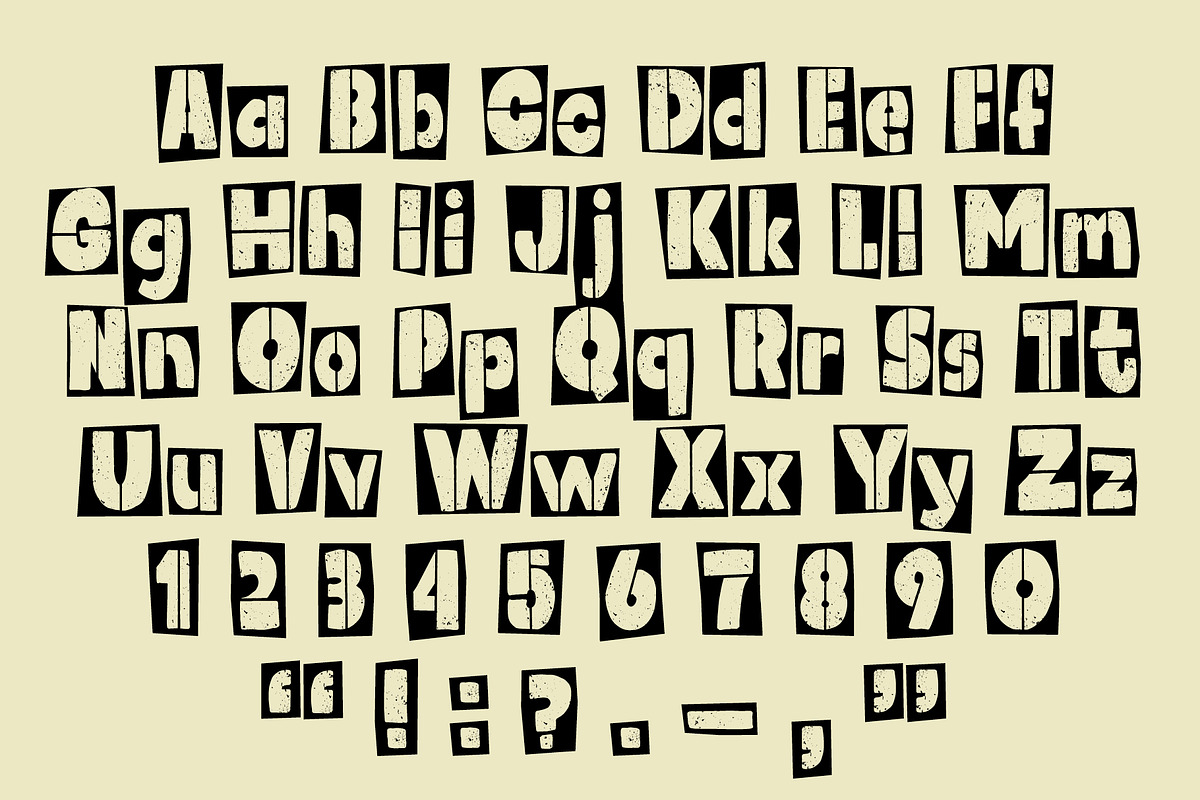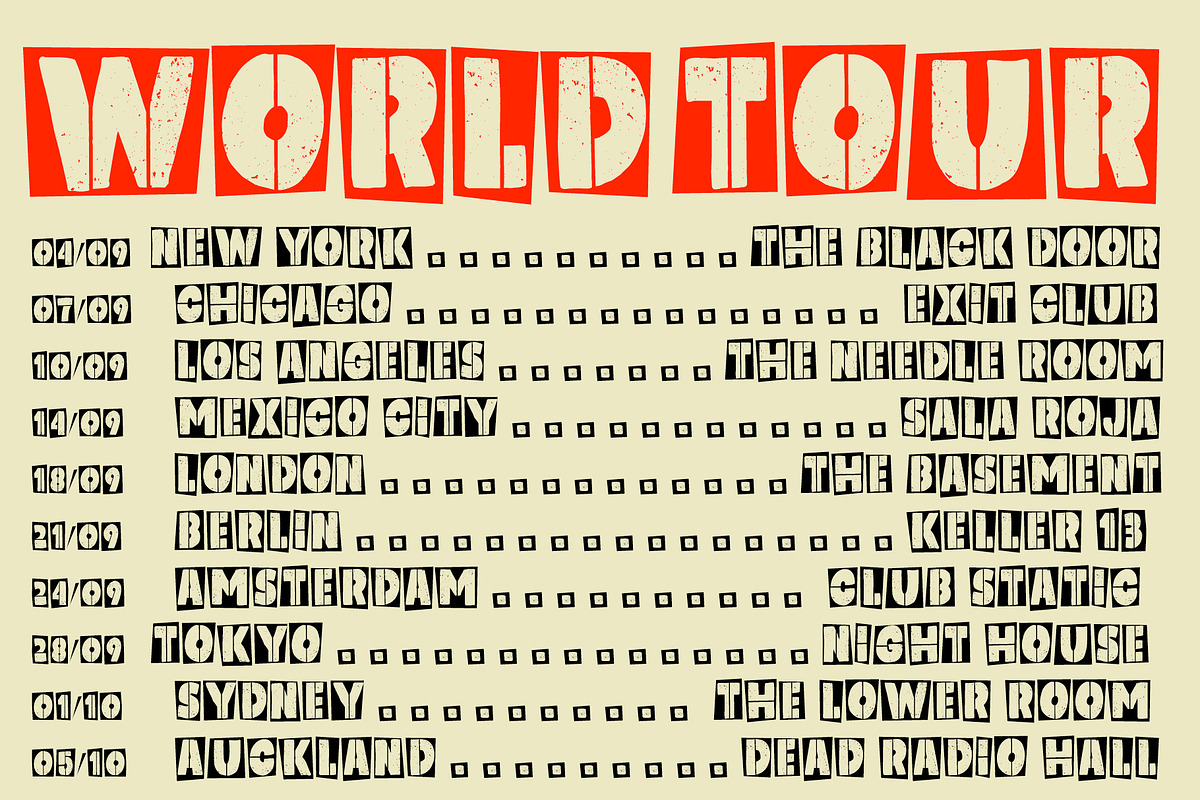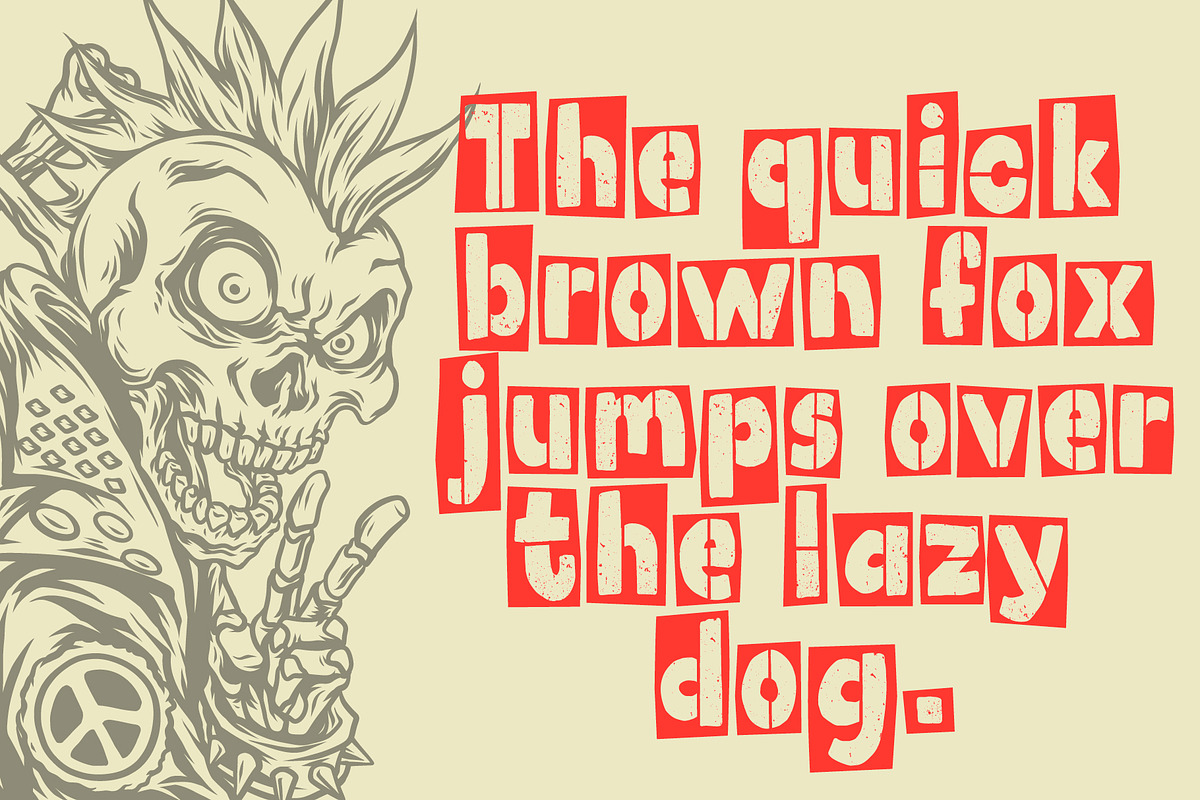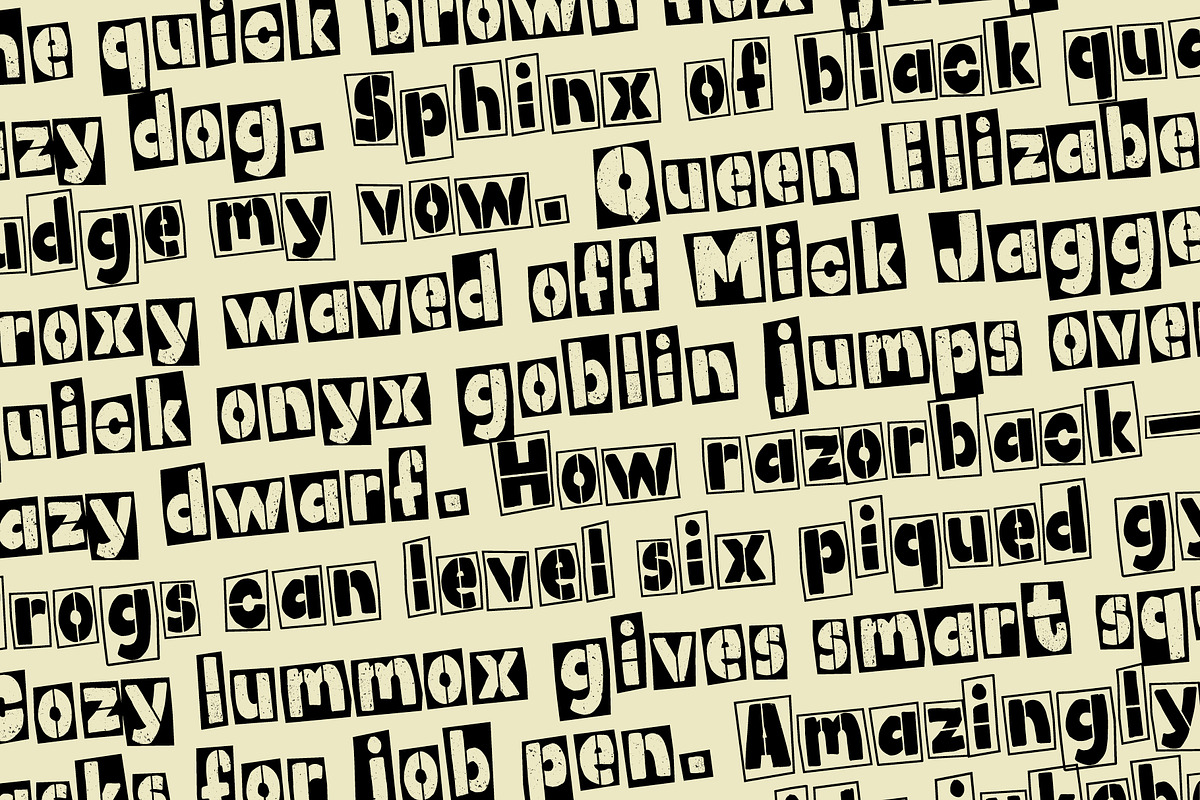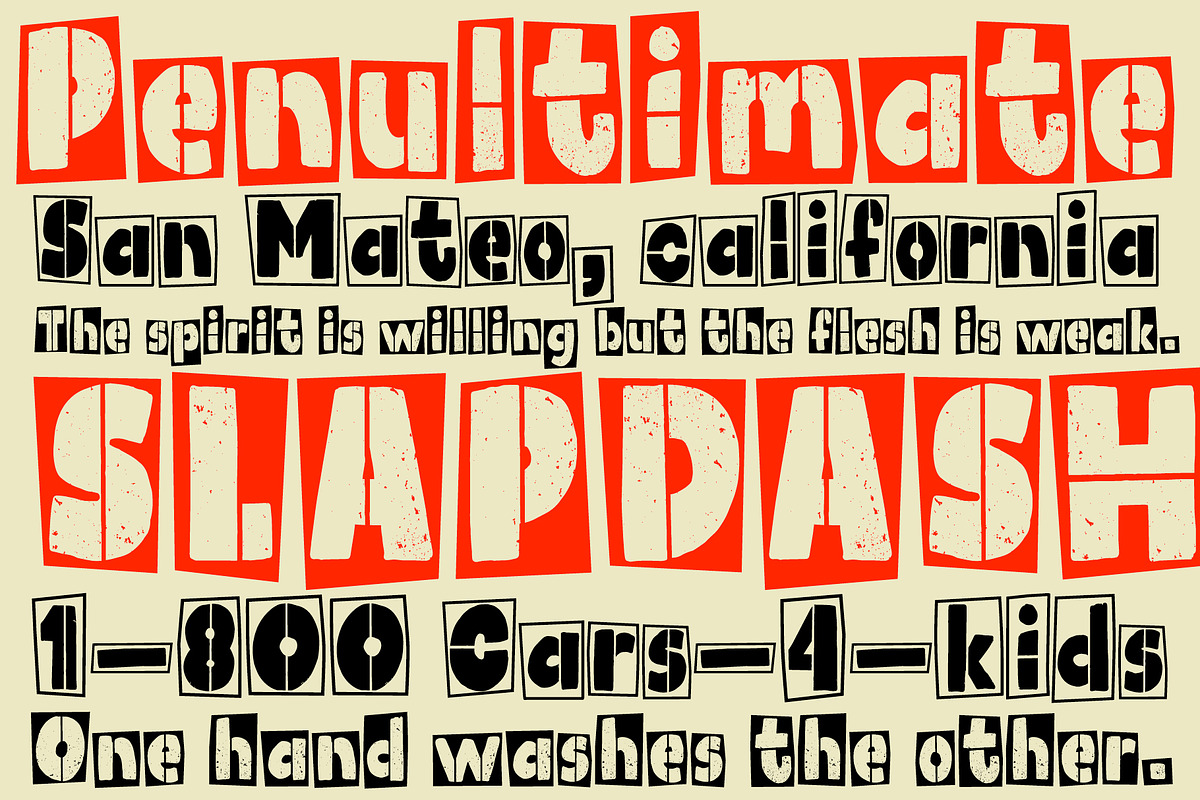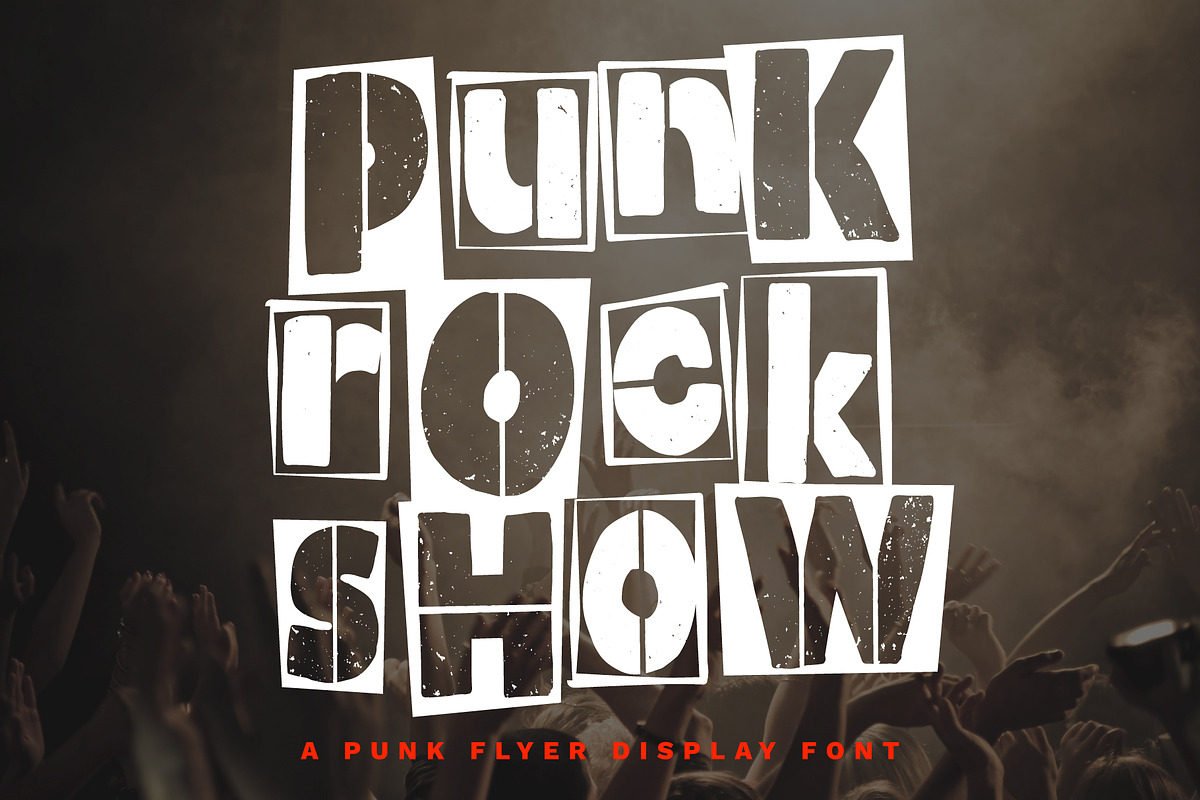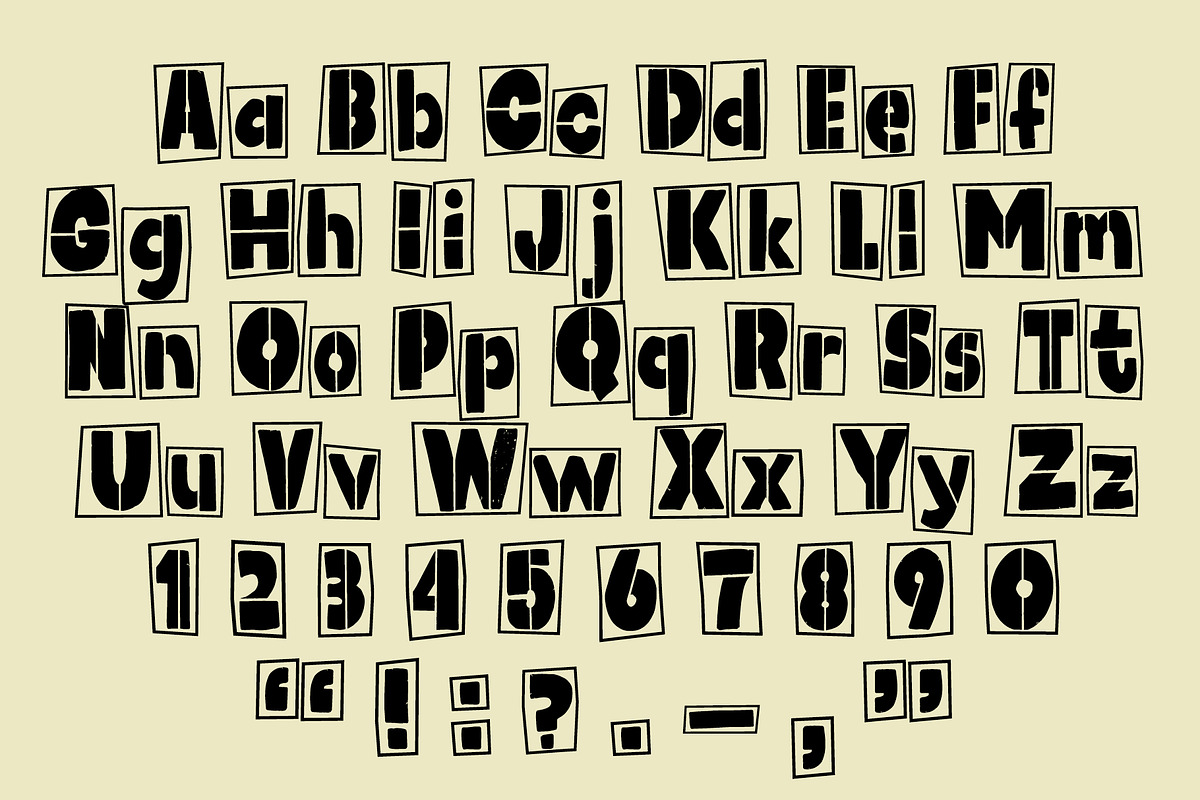
Punk Rock Show
Punk Rock Show is a loud, cut-and-paste display font built for gig posters, tour flyers, band merch, zines, album art, streetwear graphics, and anything that needs to feel like it came off a dirty copier outside a basement venue.
Inspired by photocopied punk flyers, ransom-note layouts, stencil lettering, DIY handbills, and rough paste-up graphics, Punk Rock Show mixes chunky block letters with uneven boxed forms and worn-in texture. It feels raw and physical, but still readable enough for headlines, dates, locations, logos, and big poster type.
The mix of solid shapes, outlined boxes, rough edges, and off-kilter rhythm gives the font a handmade flyer-board feel without needing extra effects. Set it big for maximum impact, stack it into messy show-poster layouts, or use it smaller for supporting type that still carries attitude.
Perfect for punk flyers, gig posters, tour dates, band logos, merch graphics, album covers, zines, skate graphics, streetwear branding, event promos, and loud social posts.
Includes uppercase, lowercase, numbers, light punctuation, and rough display texture.